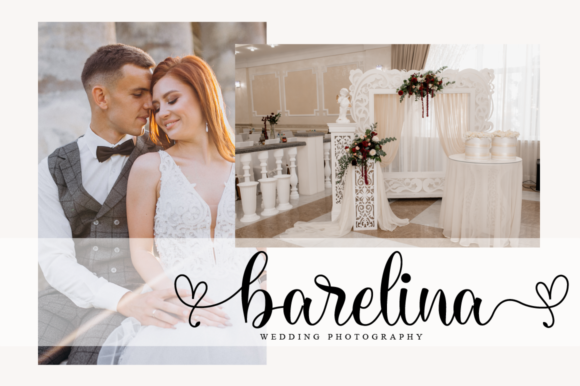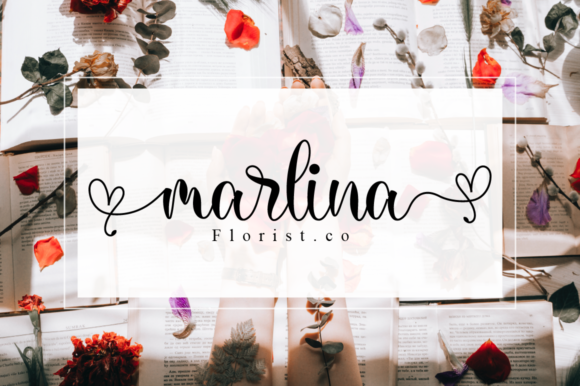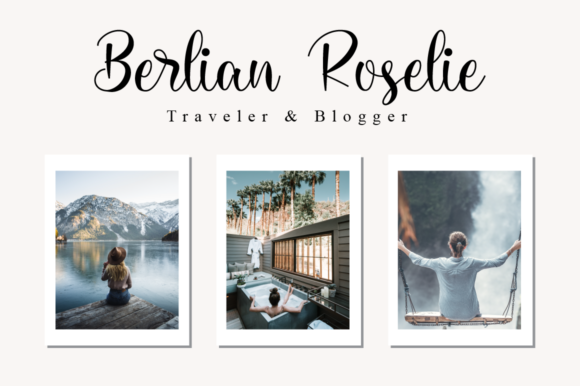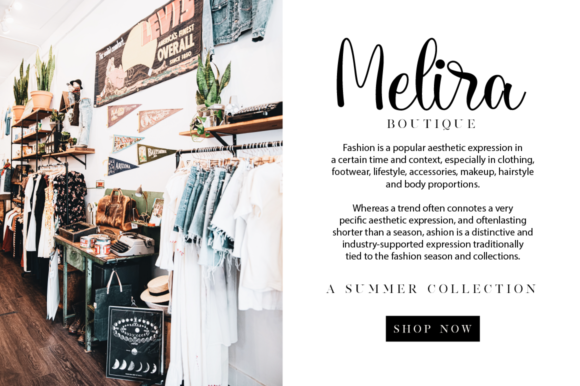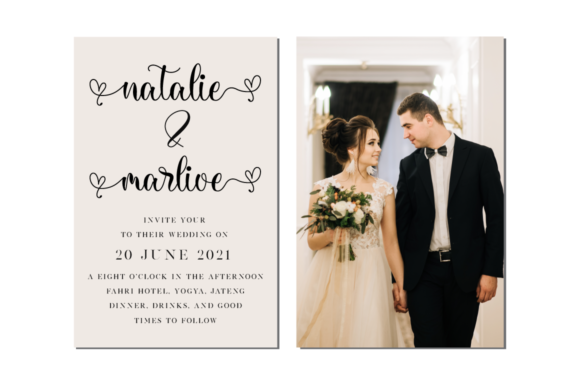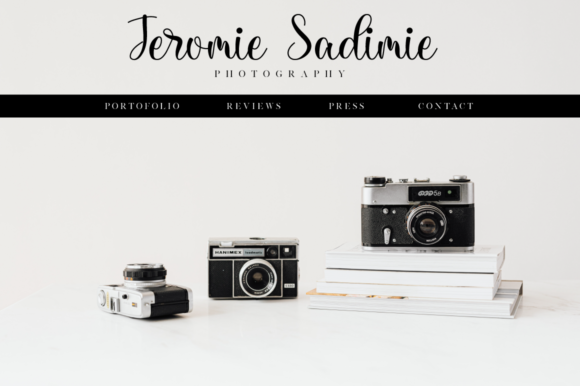
Introduction to Kamiley Font
Kamiley is an exquisite handwritten font.
It features romantic heart-themed characters that will add a special touch to your designs It is the perfect font for your Valentineโ€™s designs.
Kamiley Font offers exceptional quality and versatility, making it a valuable addition to your design toolkit. Whether you’re creating for personal projects or commercial use, Kamiley Font delivers professional results.